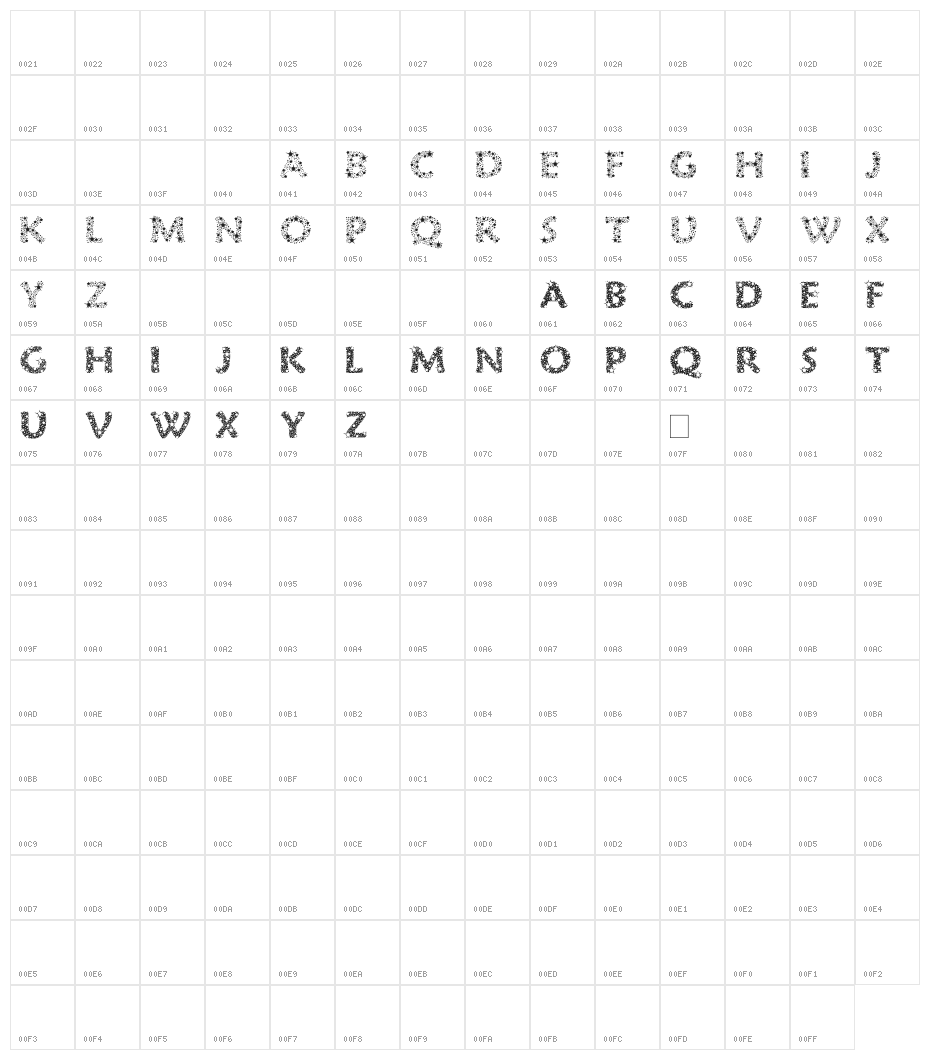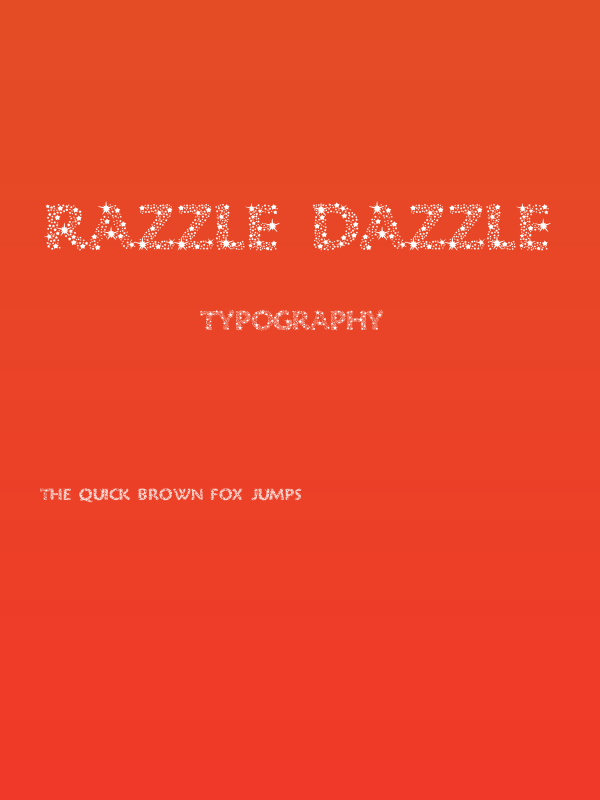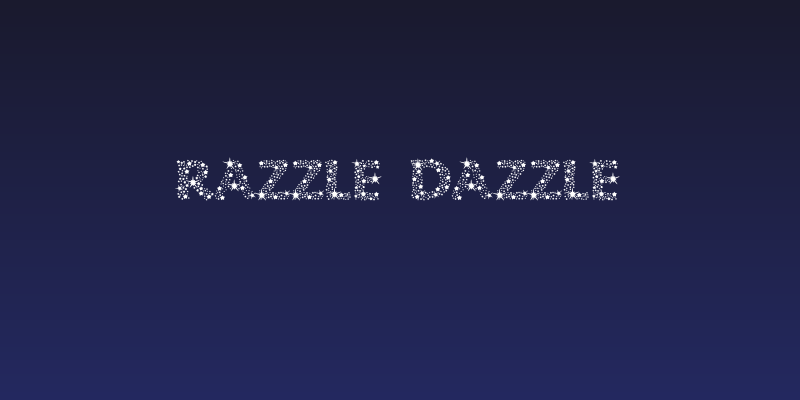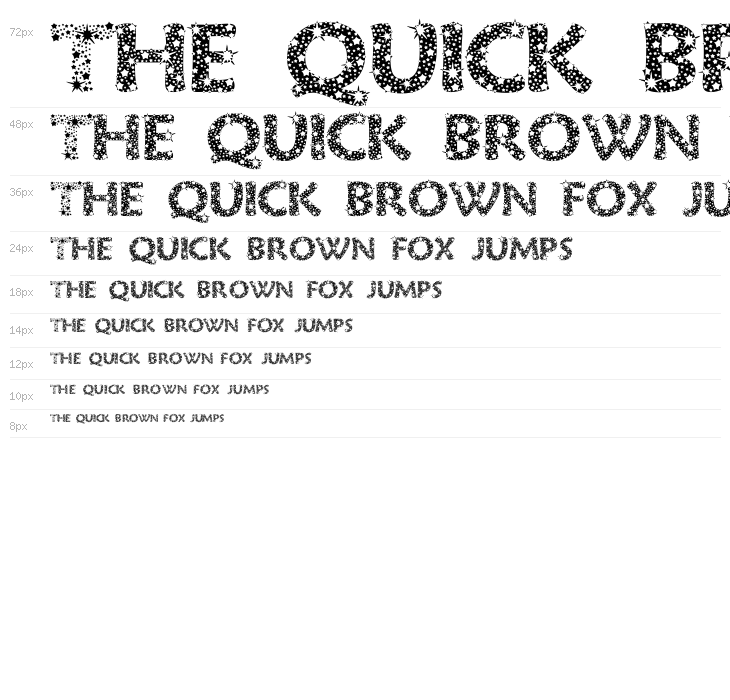
Razzle Dazzle Font
Razzle Dazzle Description
This font is a playful and decorative typeface filled with star-like patterns that create a dazzling effect. Each character is adorned with a multitude of small, sparkling shapes, giving it a unique and eye-catching appearance. The letters are bold and well-defined, making them stand out against any background. This font is perfect for projects that require a touch of whimsy and flair, such as party invitations, festive banners, or children's book covers. Its distinctive style ensures that it captures attention and adds a sense of fun and excitement to any design.
| Proposed Projects | Ideal for party invitations, festive banners, children's book covers, and any project needing a whimsical touch. |